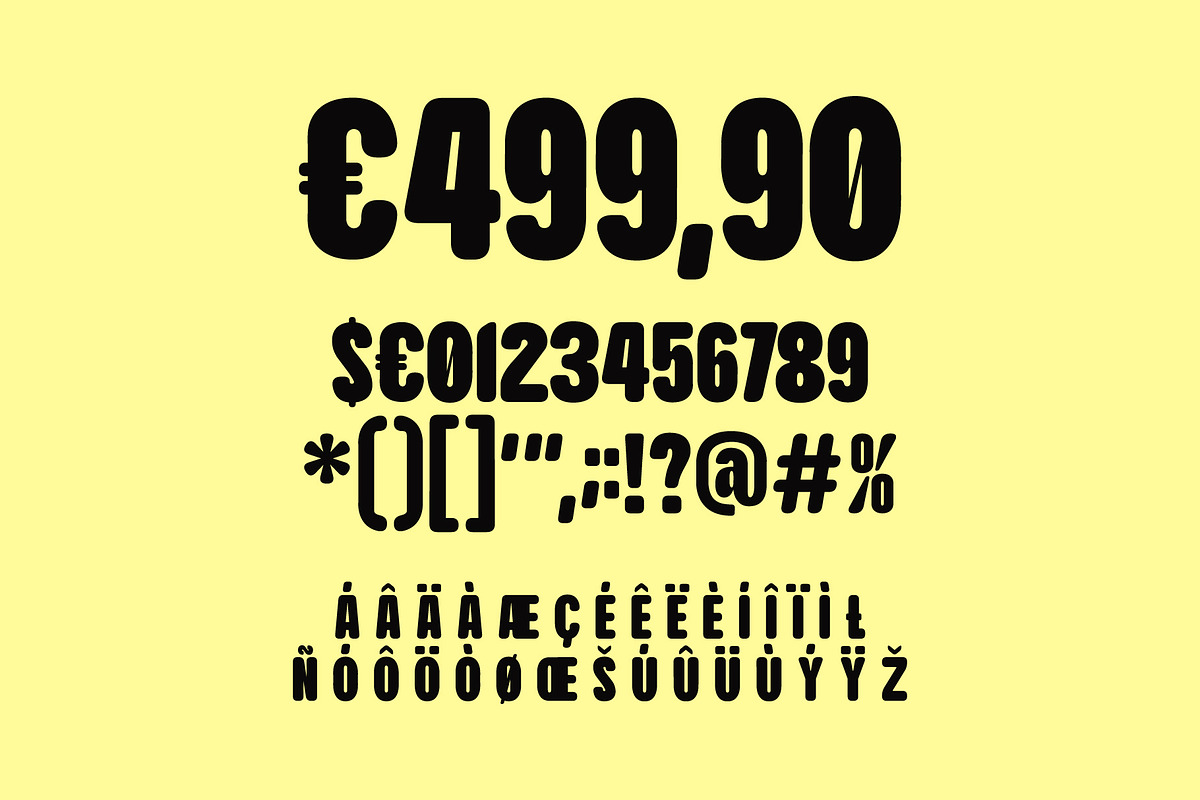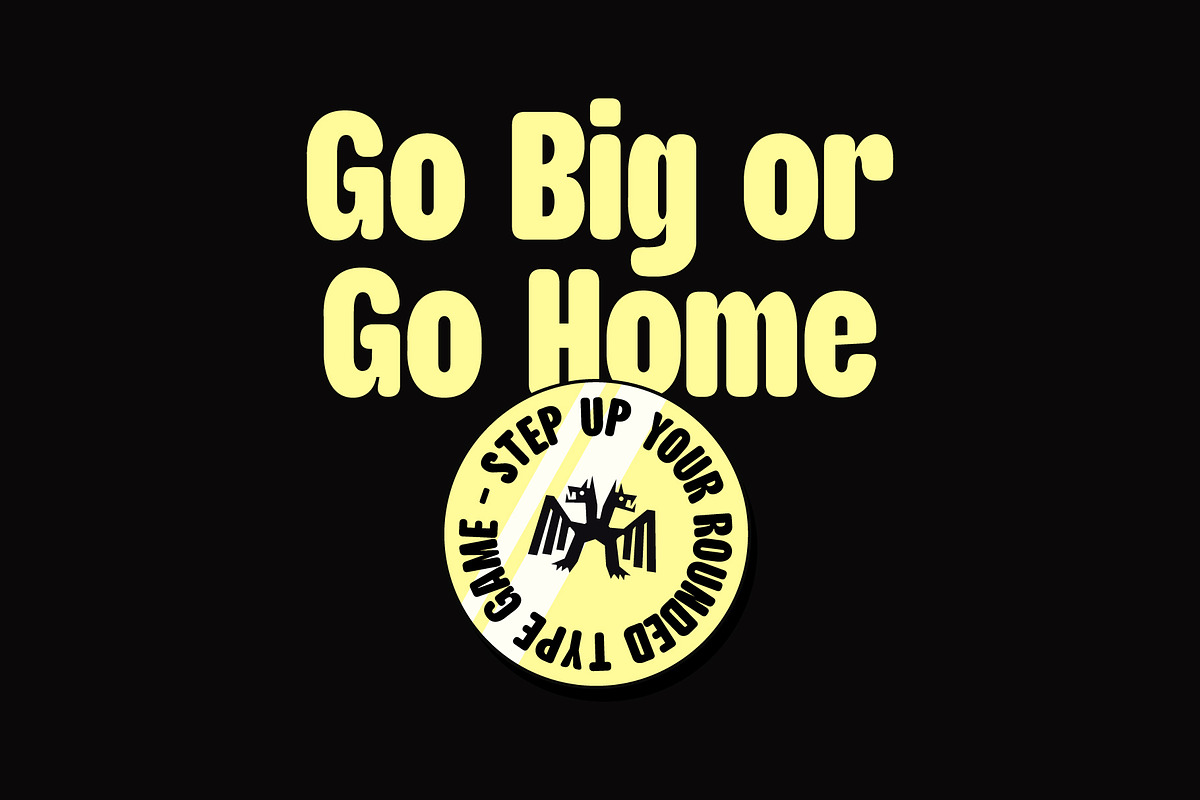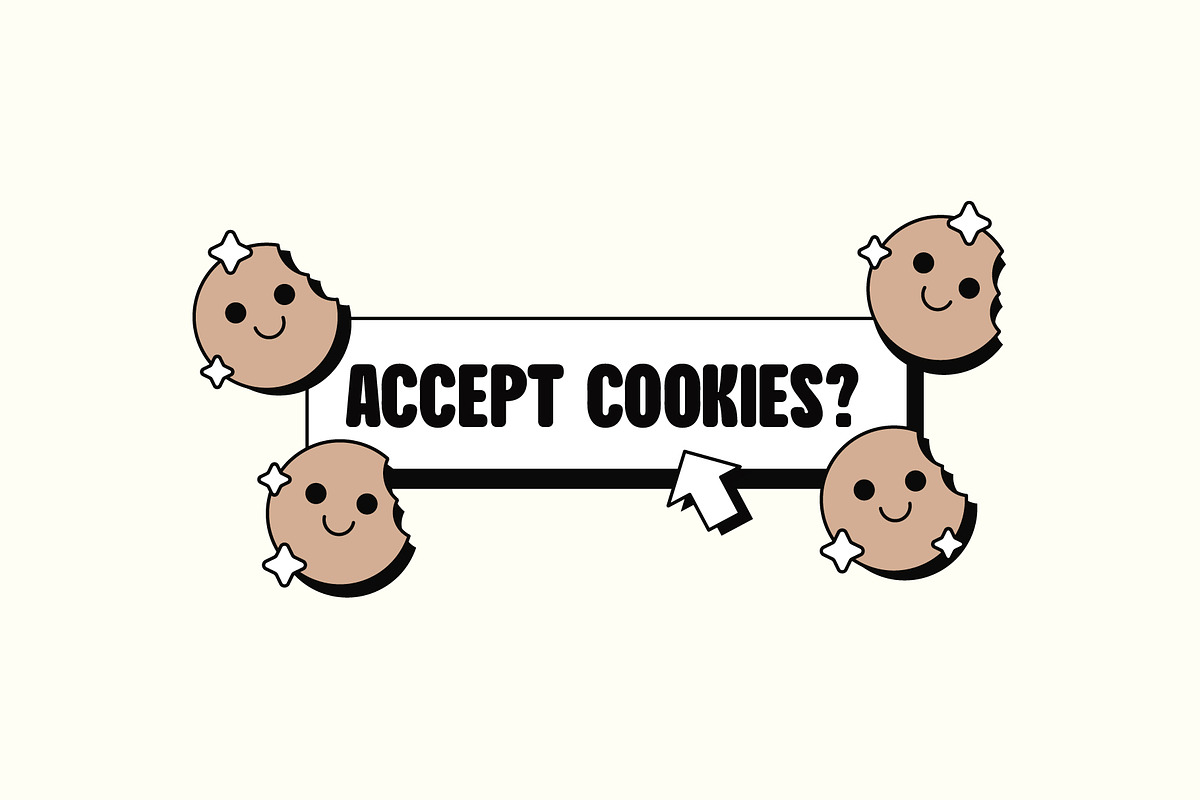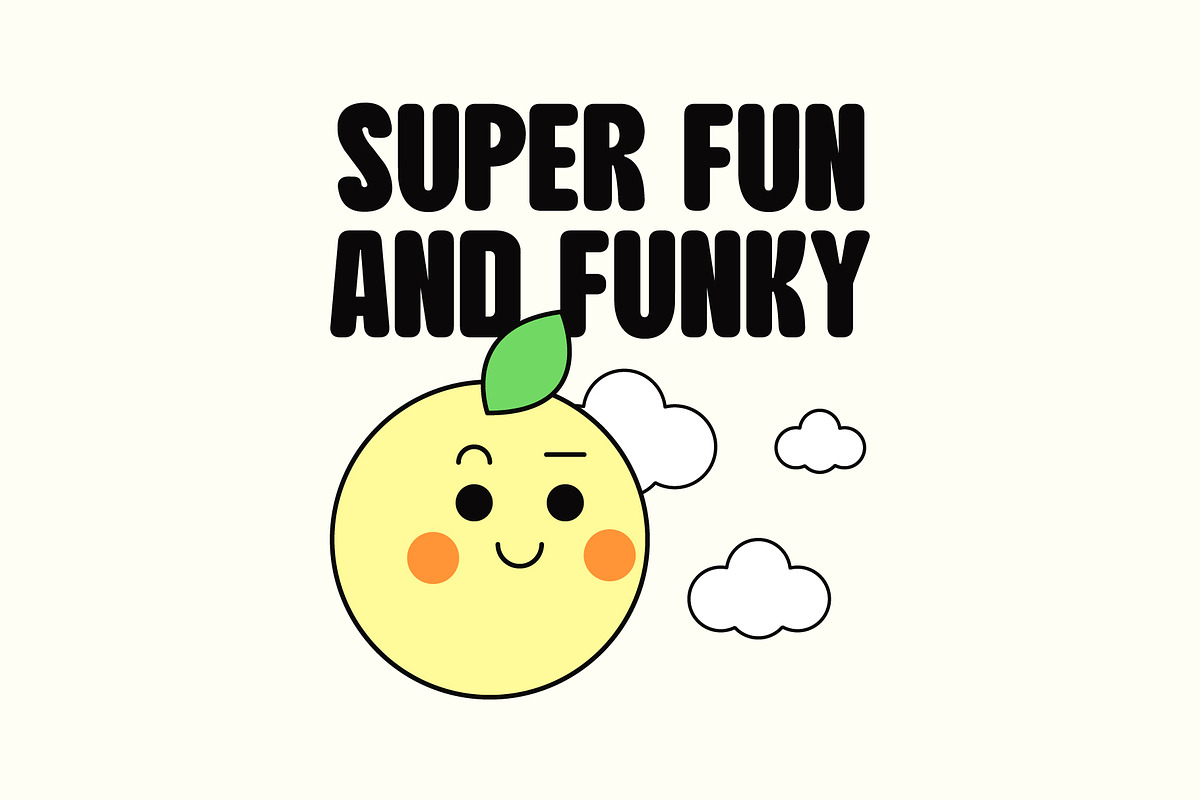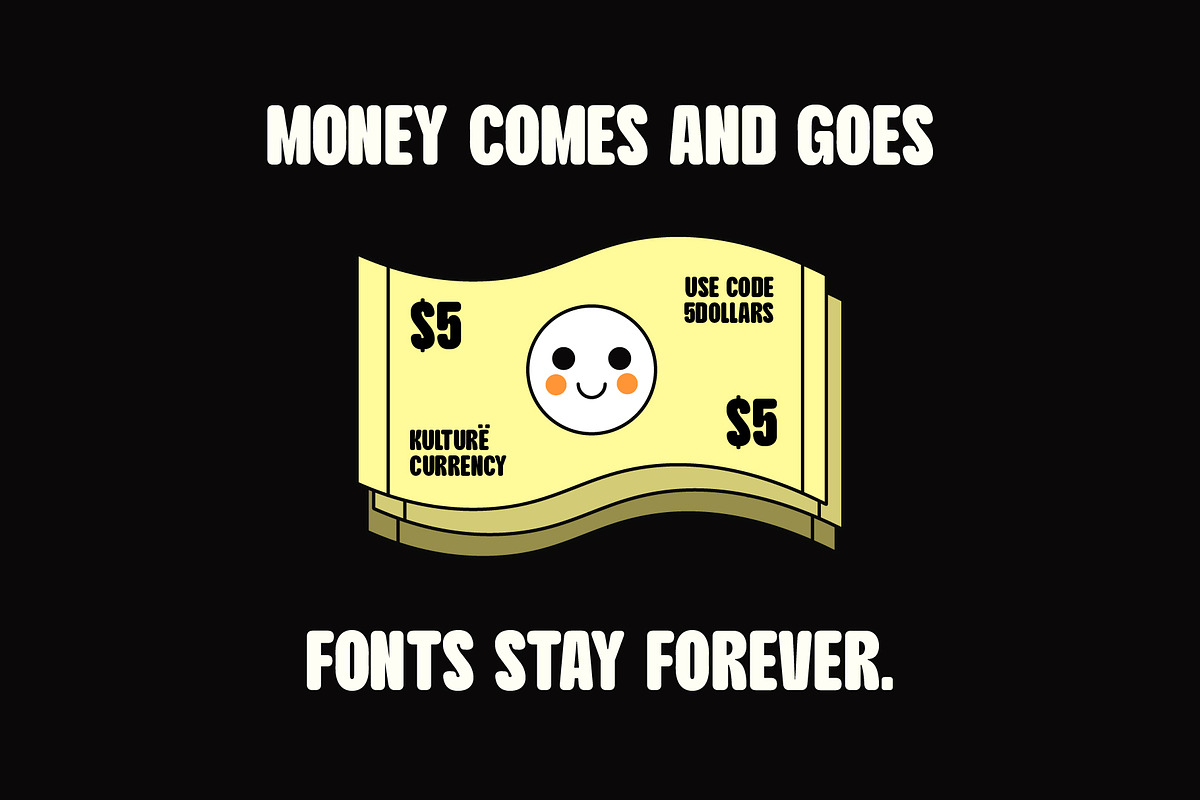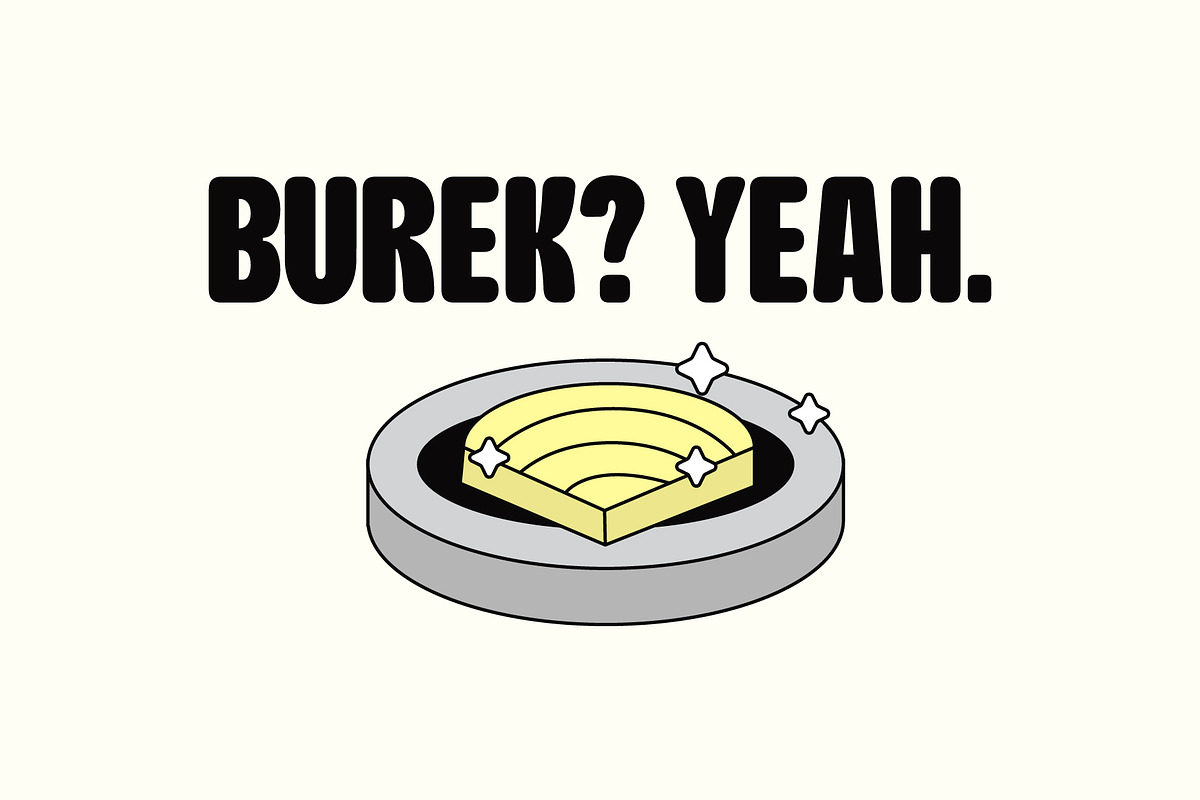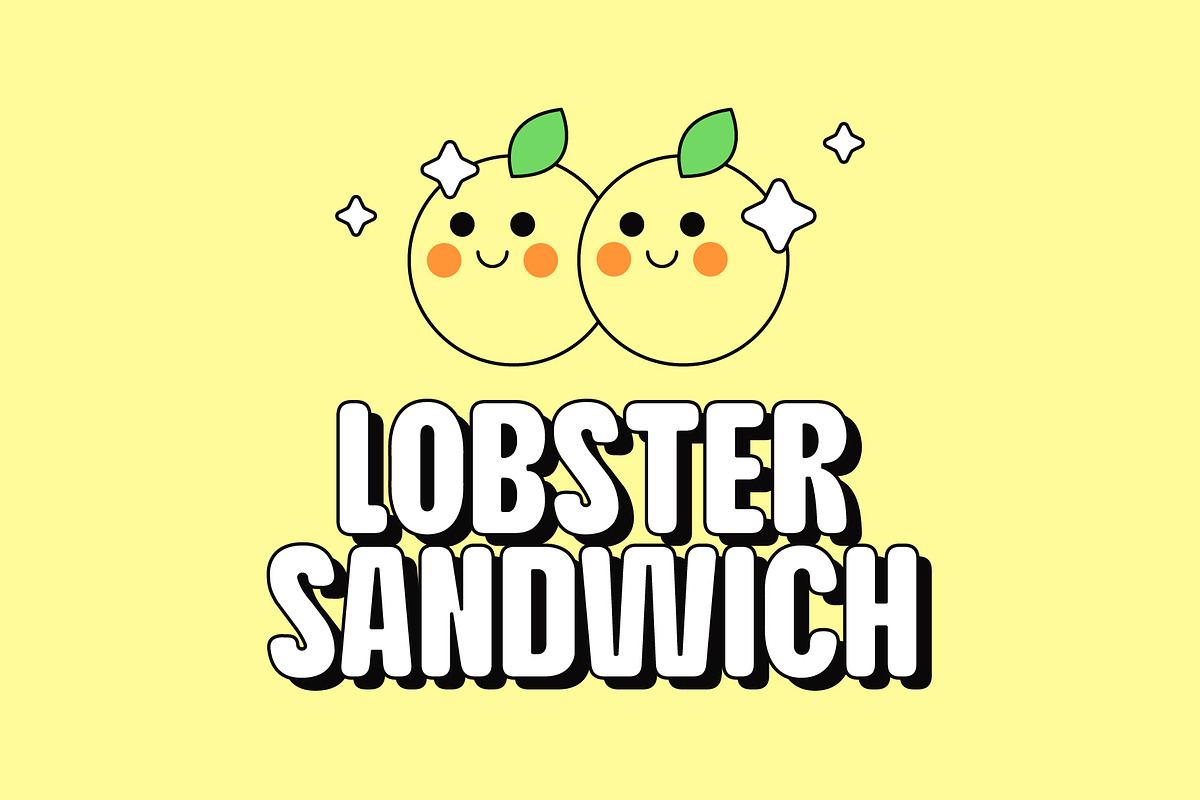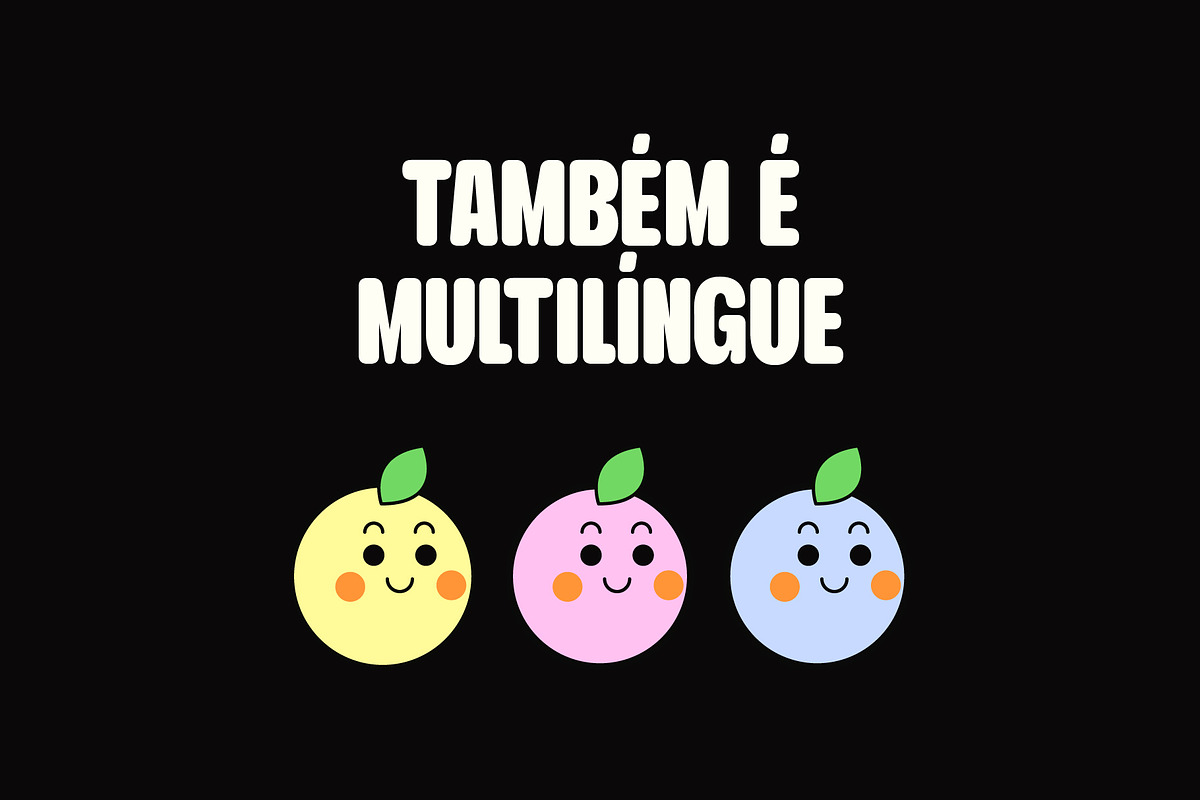
Gin & Jüs Rounded - Display Type
Nothing better than a rounded version of our most loved release!
Gin & Jüs is now available in the newest rounded format. A delicious, fun & quirky font that you'll certainly fall in love very quickly.
With its cute character, neat little glyphs and friendly rounded curves it is the right type for any job there is.
We've expanded the styles by adding an additional rotalic style which matches the overall feel of the type and adds some more spice to it.
Available in 1 weight + 3 styles and it supports most of the Western European languages / accents.